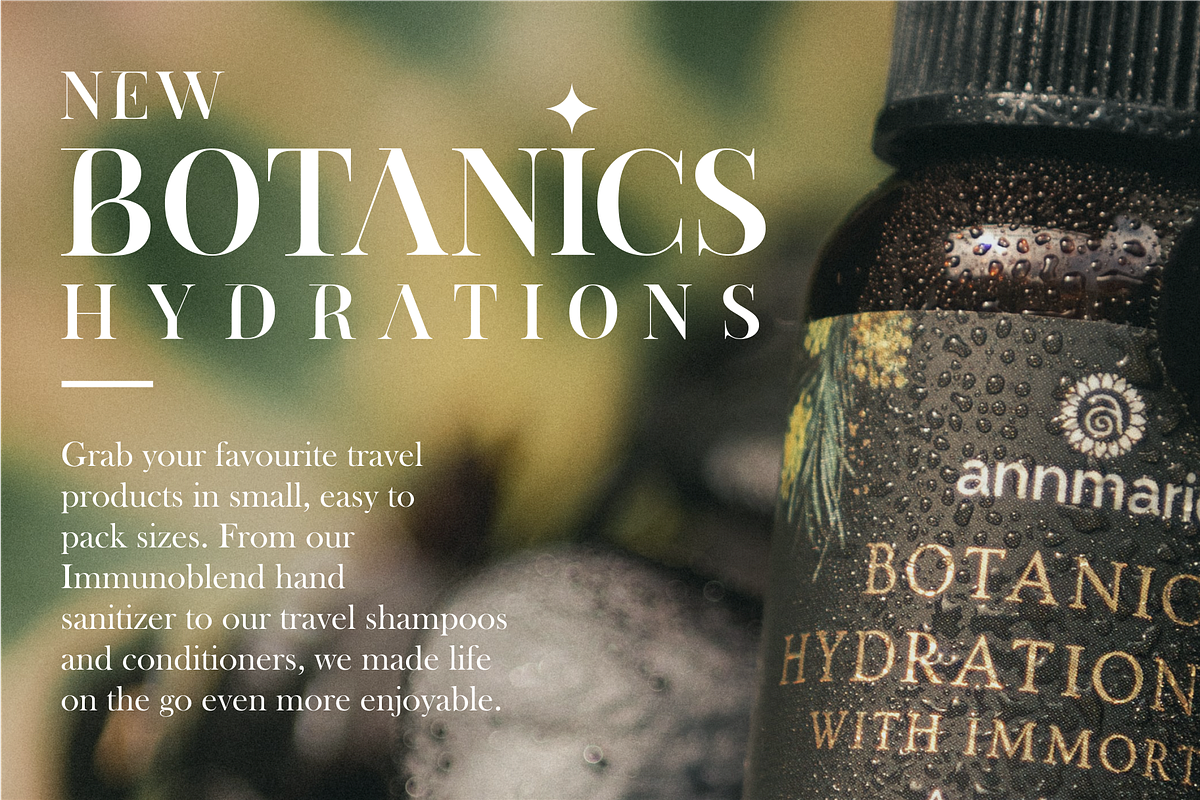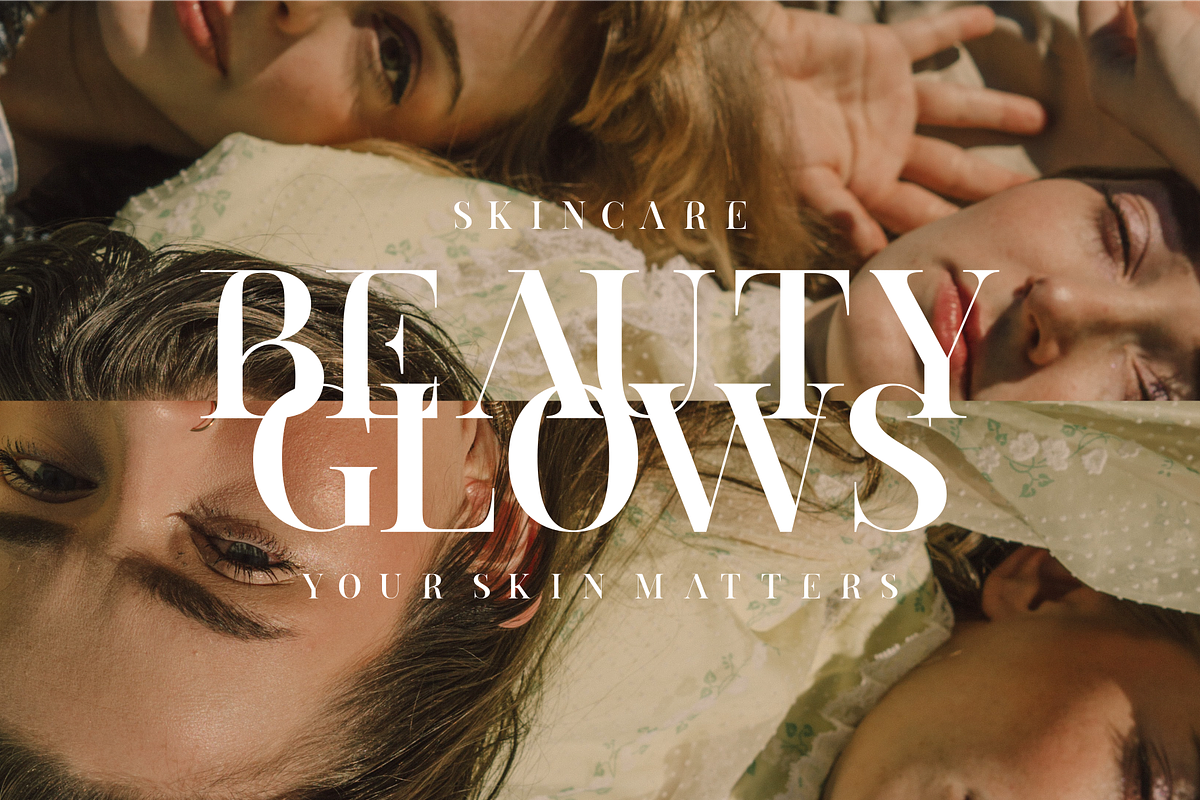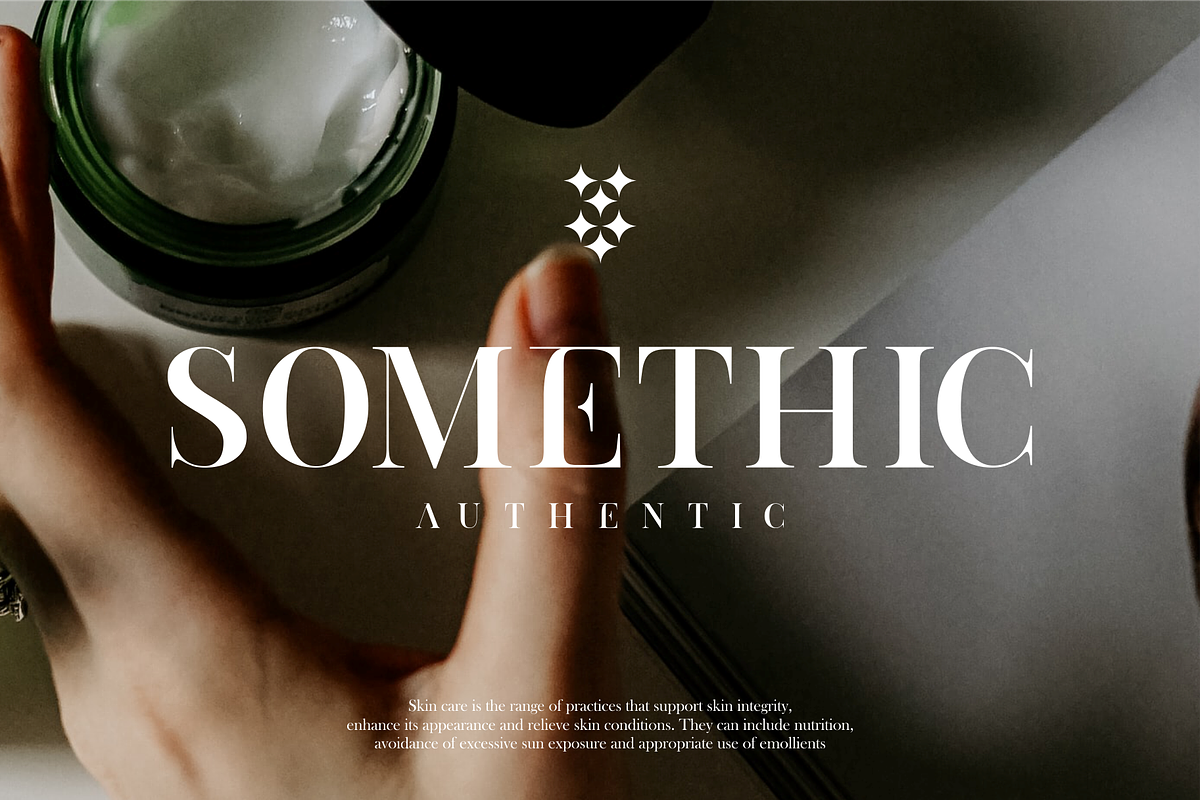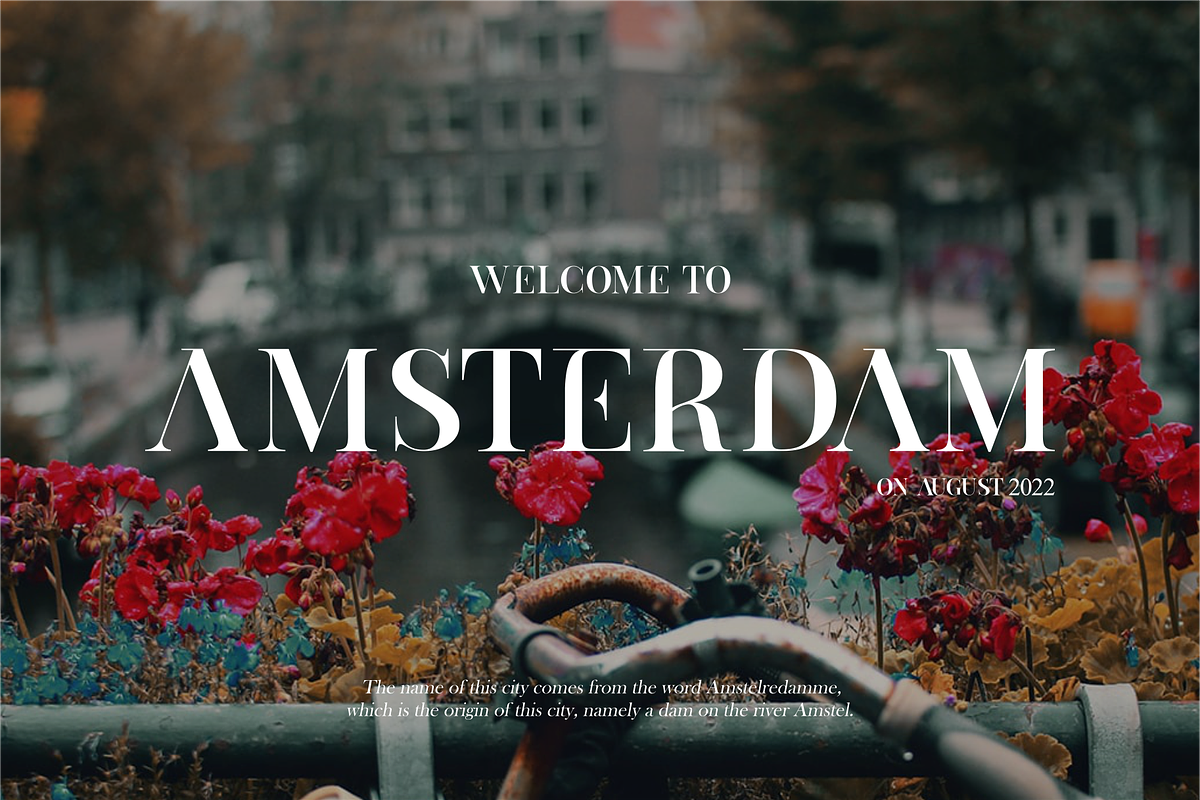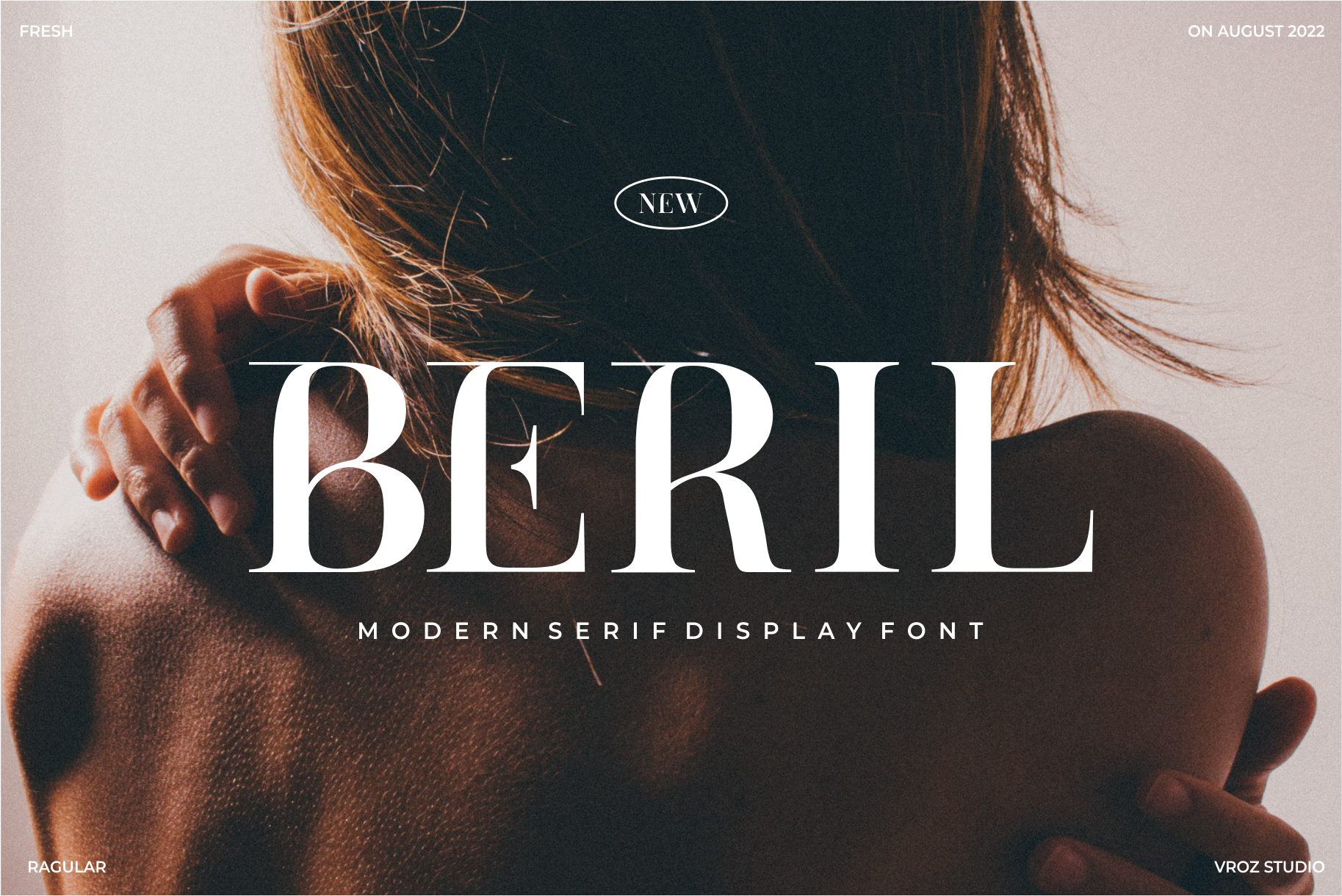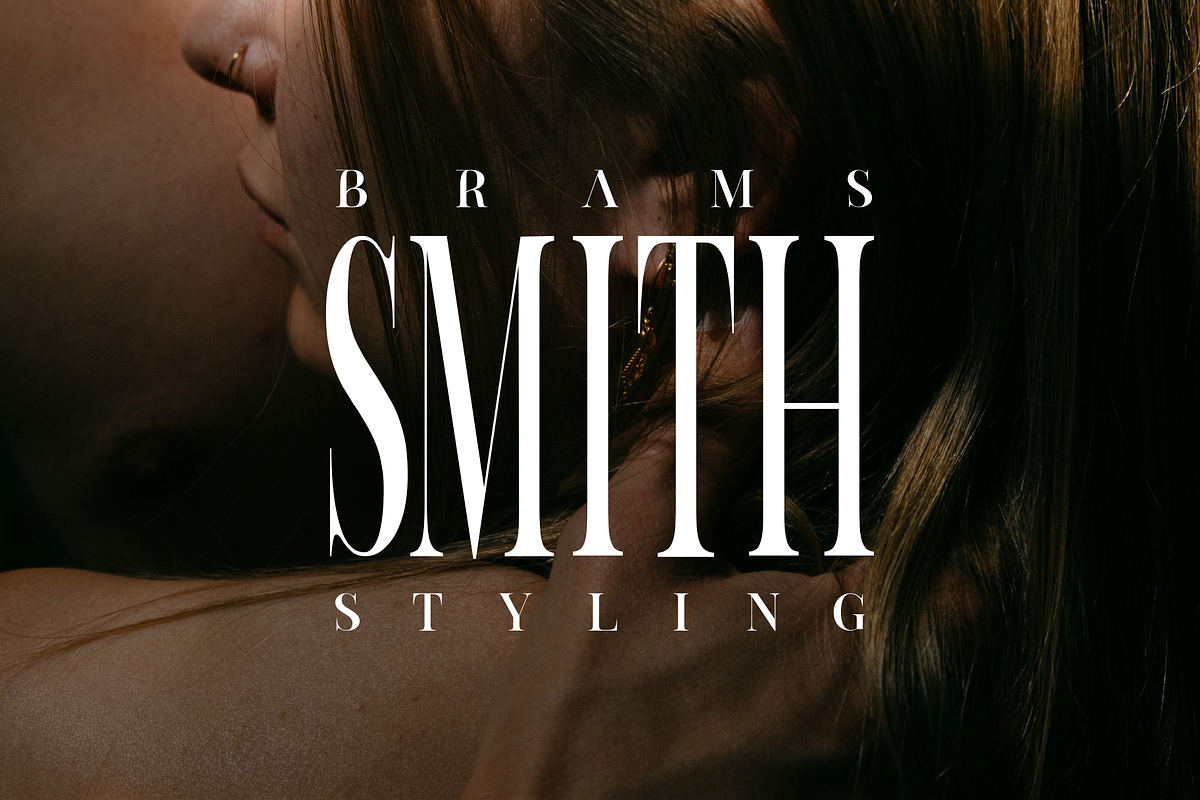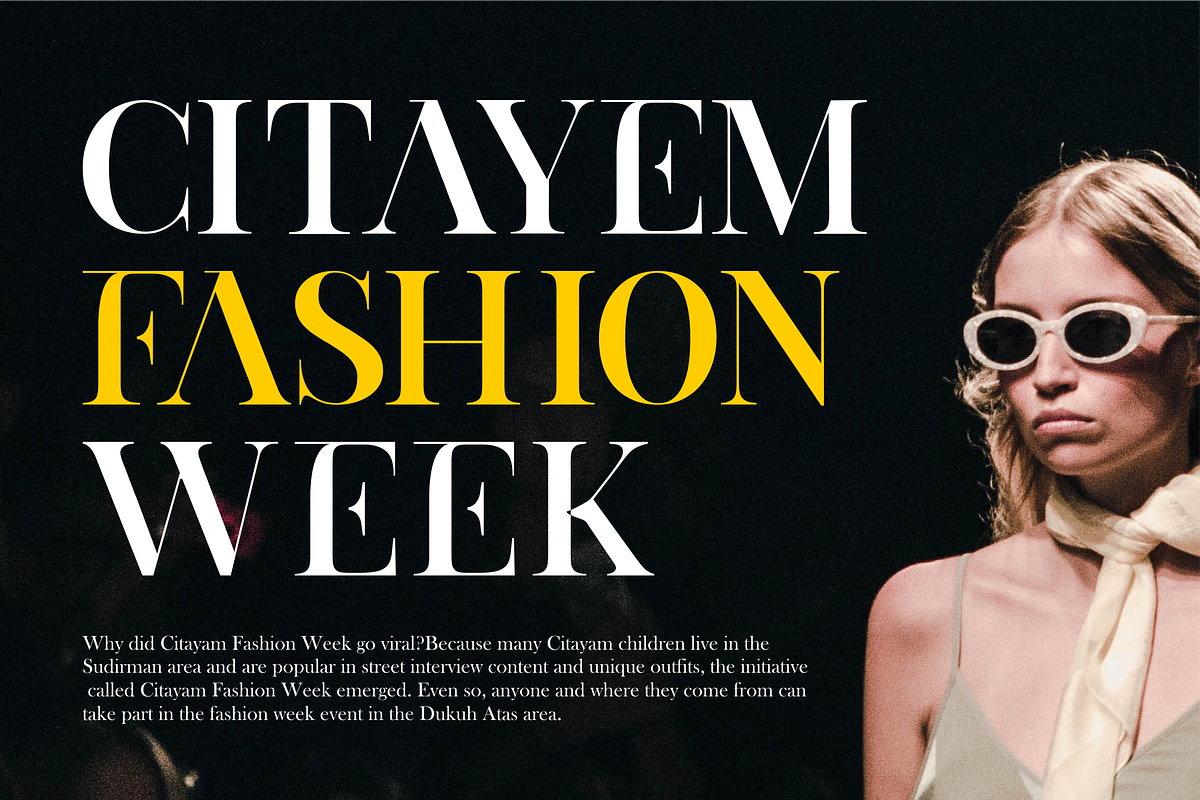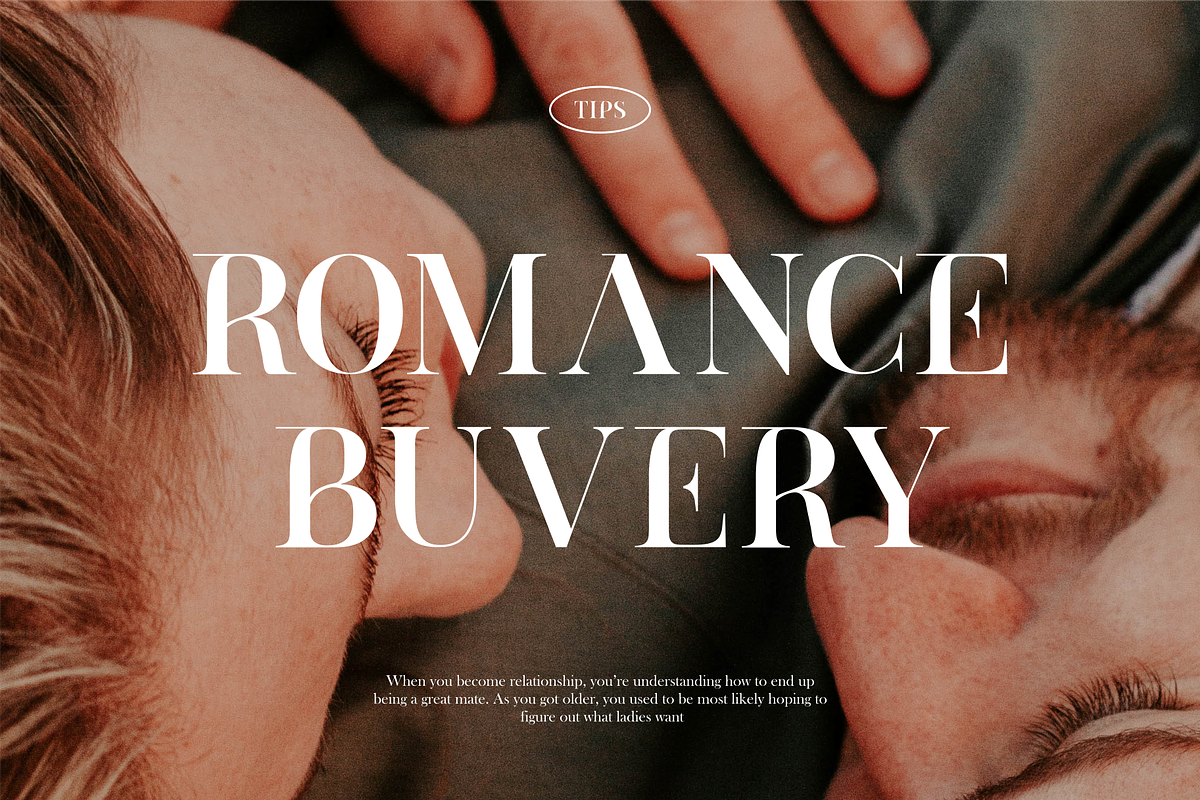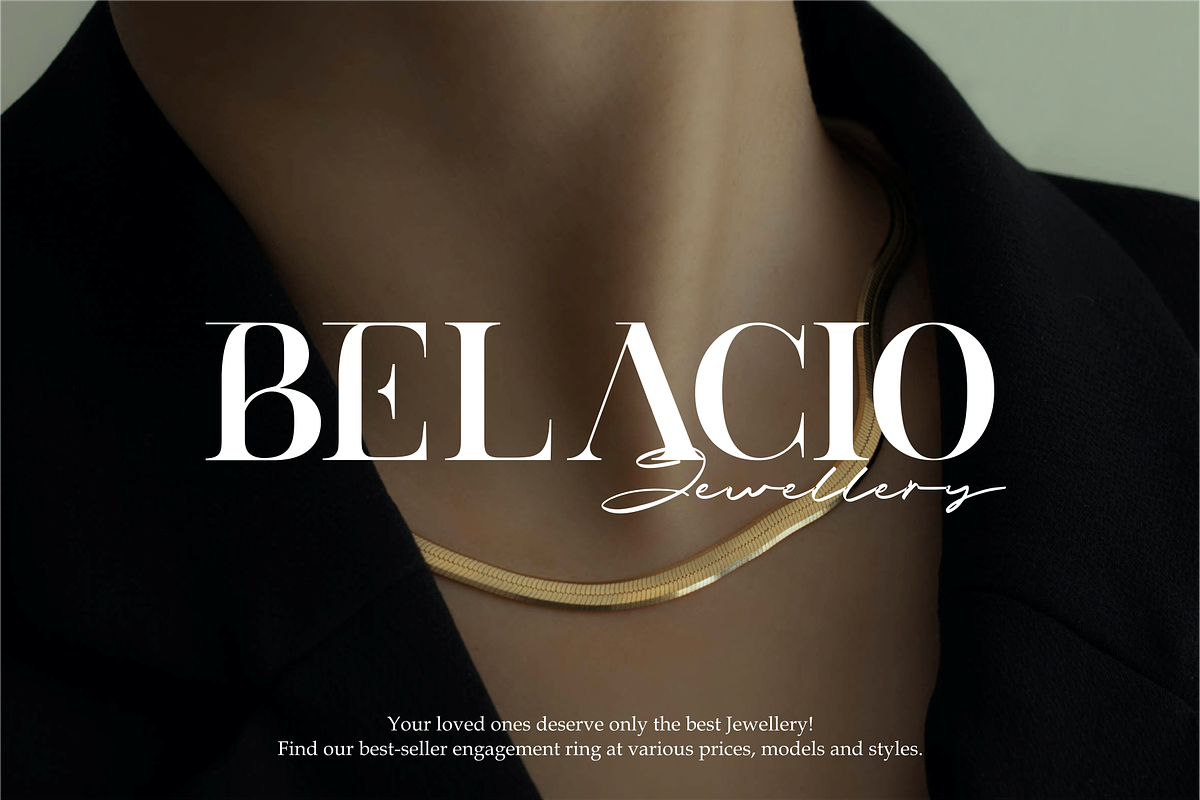
BERIL - Modern Display Serif Font
BERIL - Modern Display Serif Font will perfect for many project: fashion, magazines, logo, branding, photography, invitations, wedding invitation, quotes, blog header, poster, advertisements, postcard, book, websites, etc.